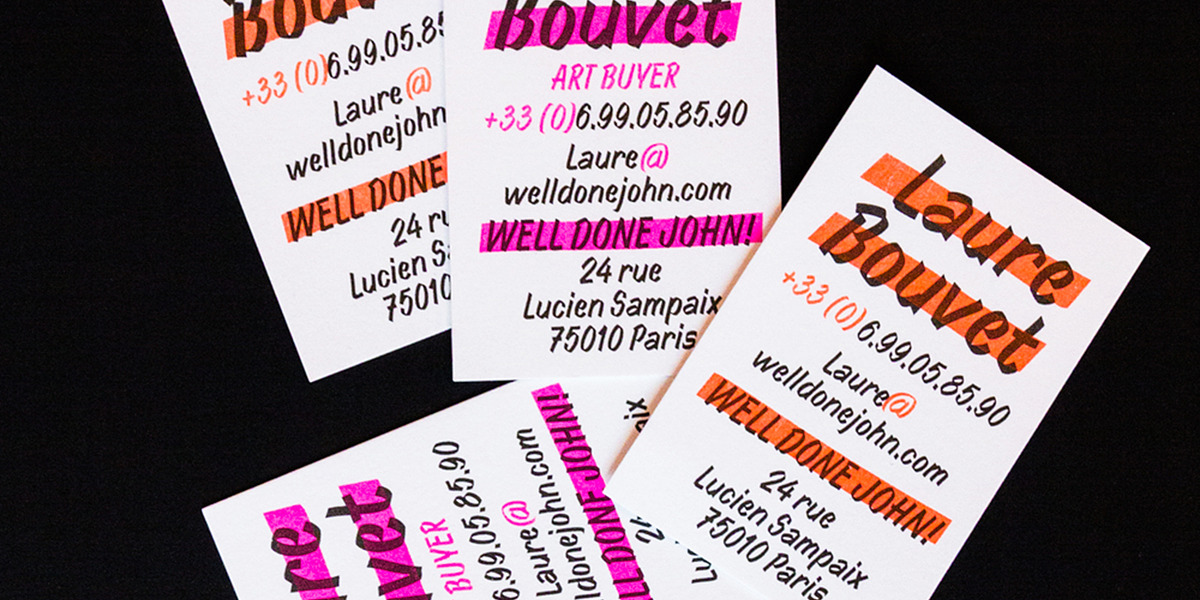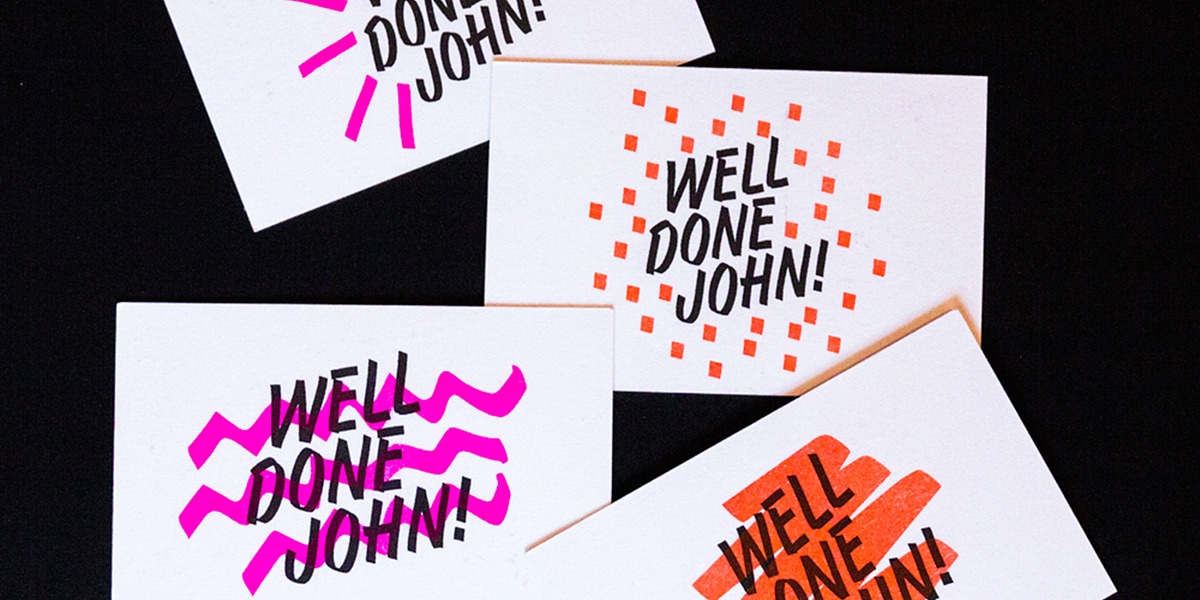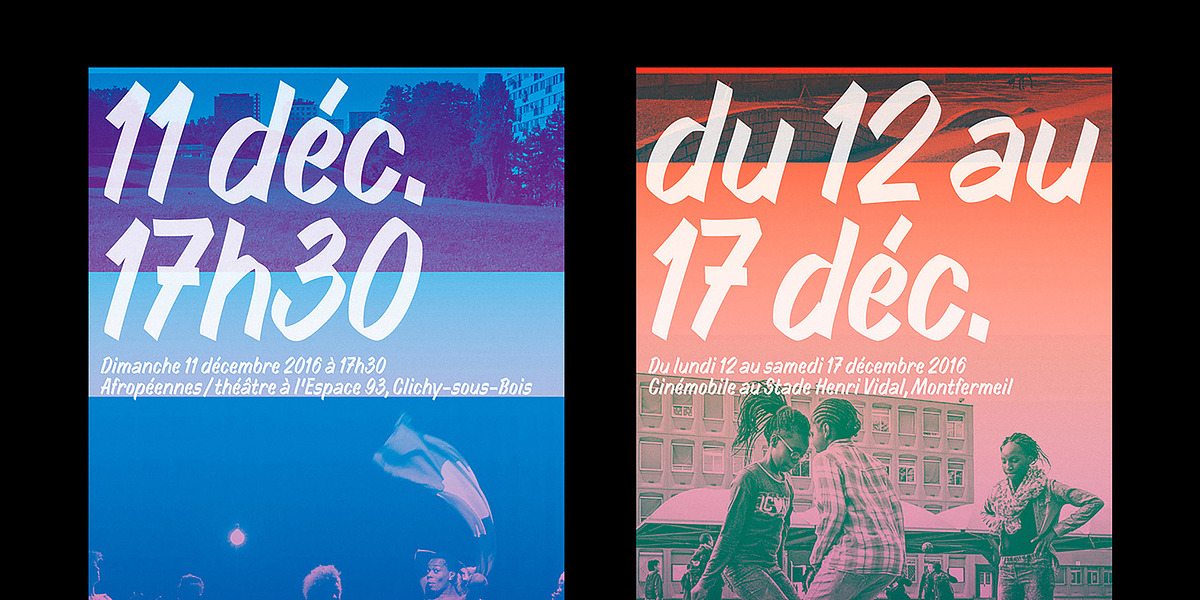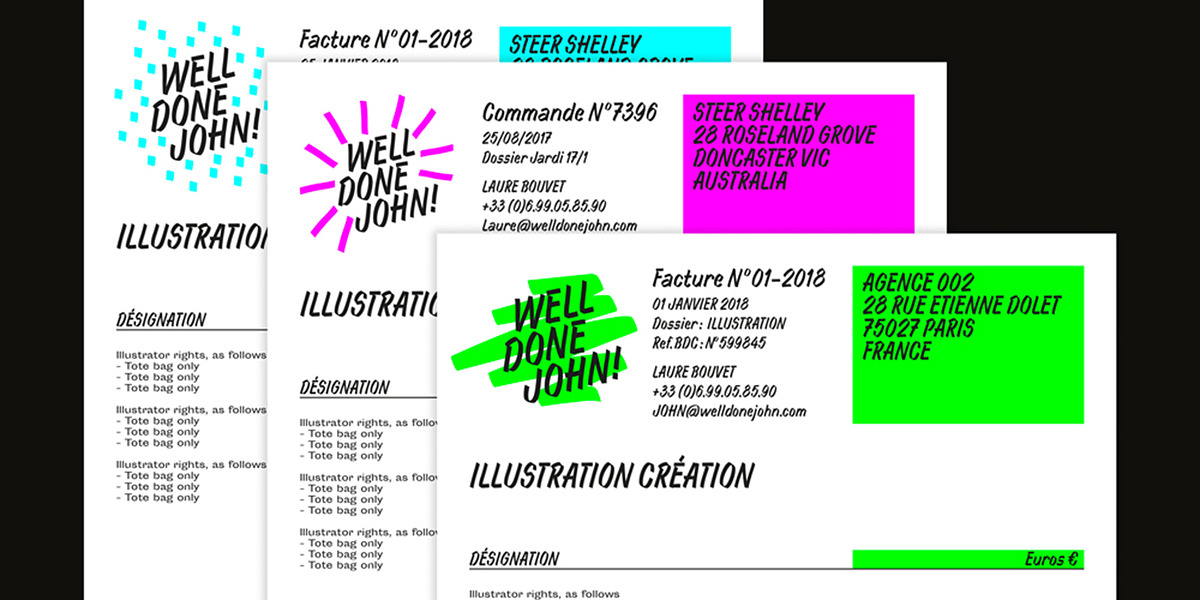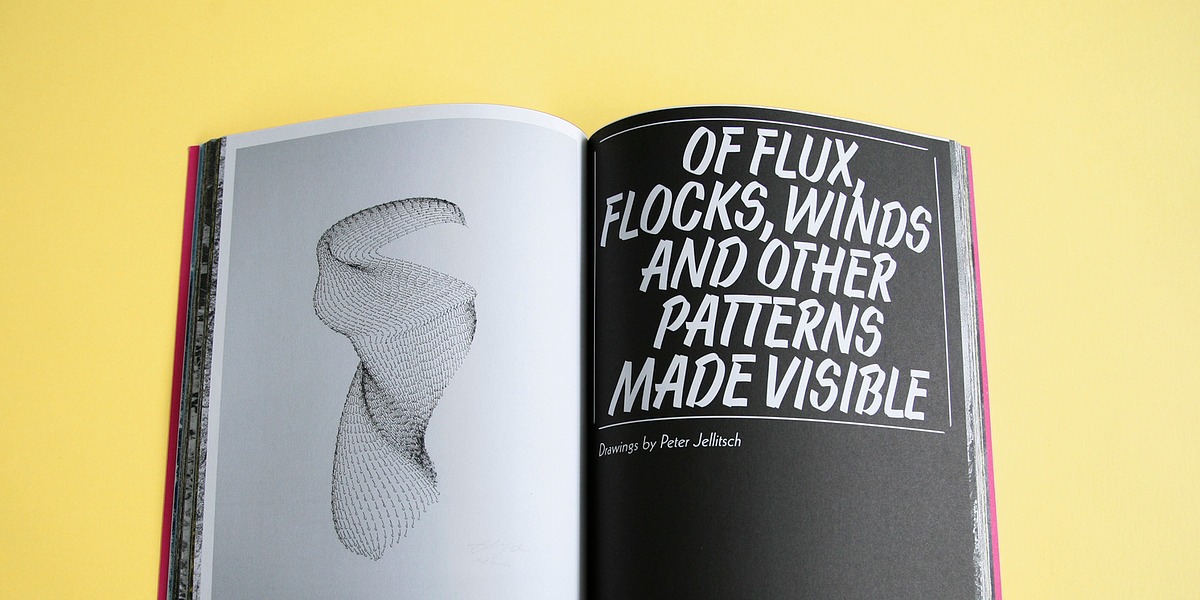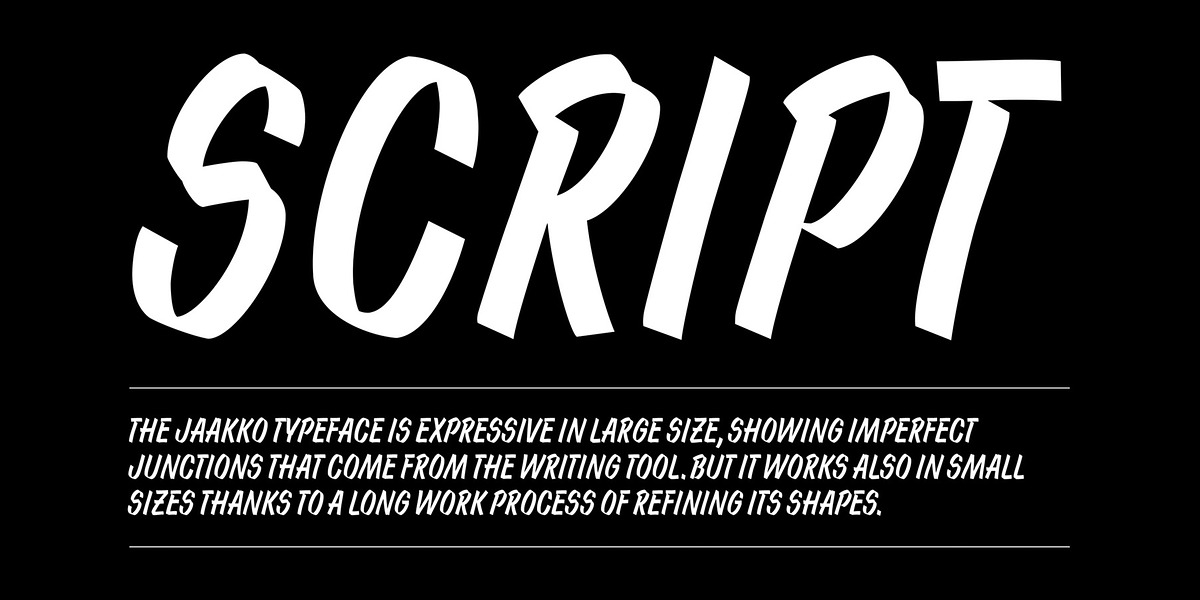
Jaakko
Jaakko is a revival of a hand-drawn typeface originally used in Finnish shops for advertising special offers. Its bold, expressive brushstrokes give it a distinctly vintage feel, making it suitable for posters, signage, and other display applications. The font includes a custom OpenType feature allowing users to create fractions.